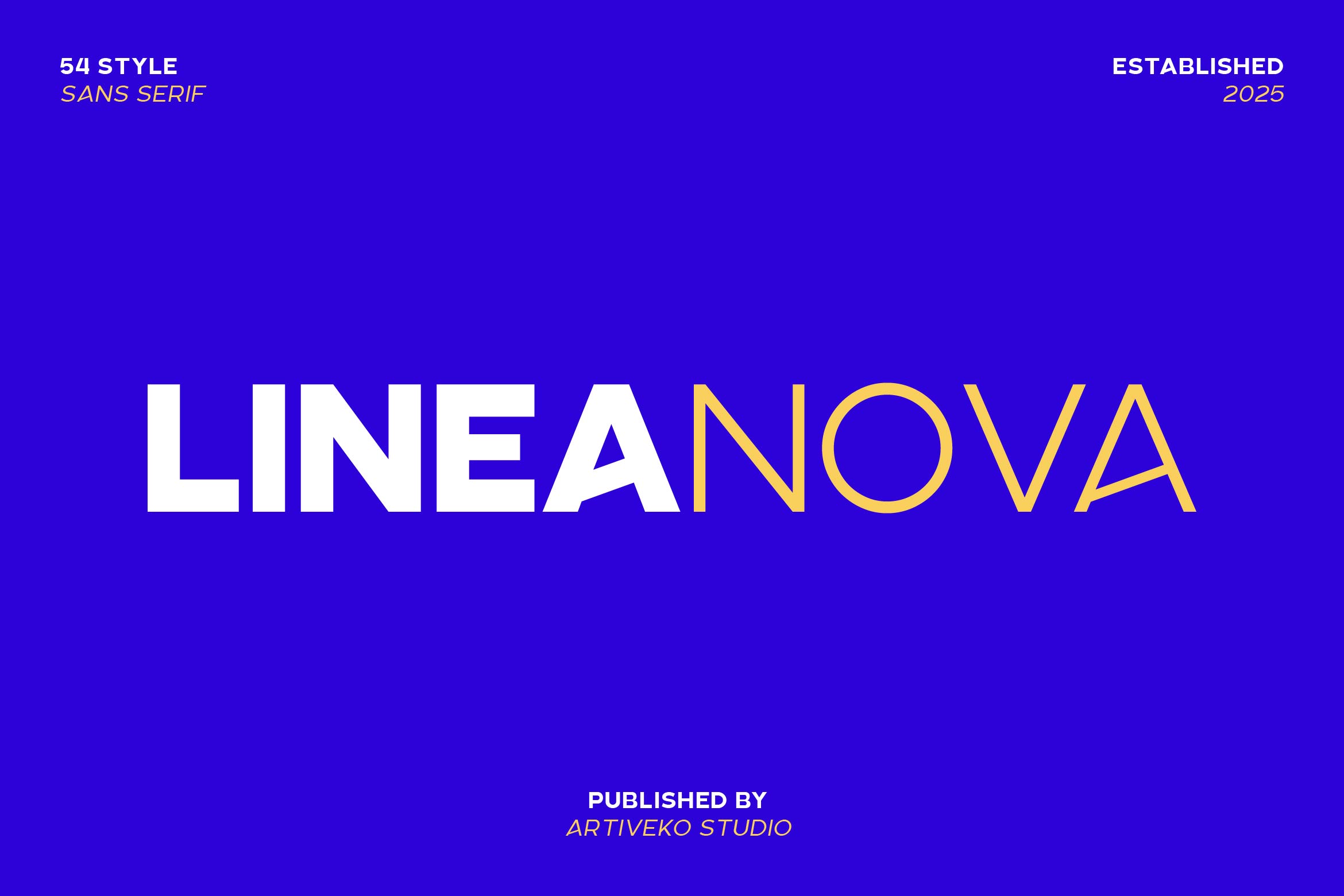
LineaNova Sans Family Font
LineaNova is a sleek and contemporary sans serif font family designed for flexibility and elegance. With its clean lines, geometric shapes, and perfectly balanced proportions, LineaNova delivers exceptional readability and modern sophistication for all types of design projects.
This font family includes multiple weights, making it ideal for creating harmonious typography systems. From bold headlines to refined body text, LineaNova adapts seamlessly to branding, editorial layouts, UI/UX design, presentations, and packaging.
Each weight is meticulously crafted to ensure consistency and versatility, giving your projects a cohesive and professional look. The family includes uppercase and lowercase letters, numerals, punctuation, multilingual support, and stylistic alternates for added creativity.
Bring structure and elegance to your designs with LineaNova — the sans serif font family that combines style, clarity, and flexibility.